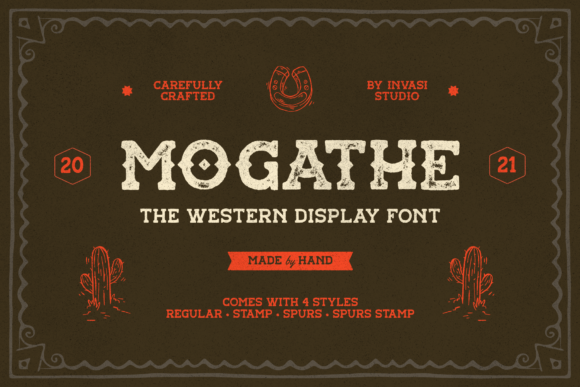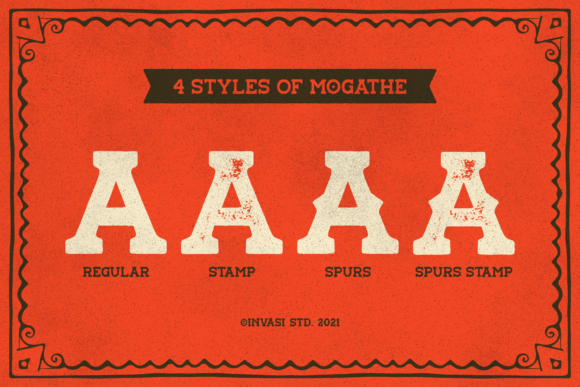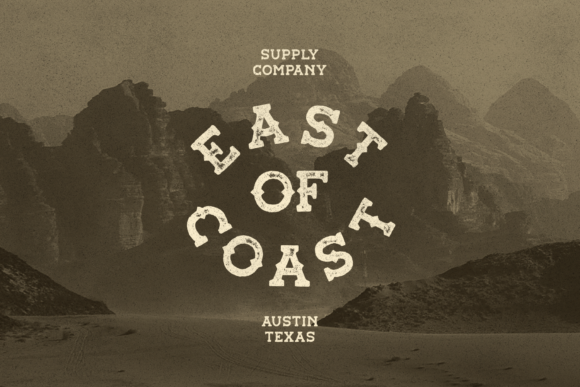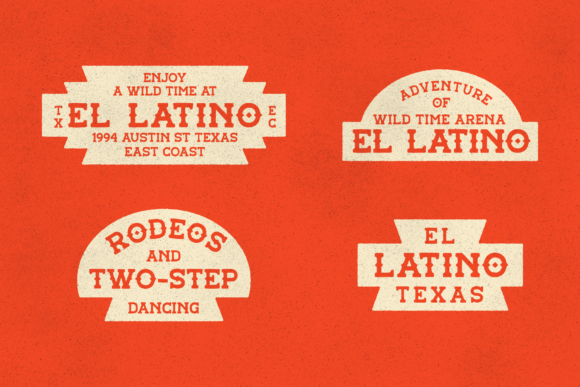
Mogathe Font: Vintage Western Slab Serif for Bold Logo Design
About the Mogathe Font
Welcome to the world of Mogathe Font, a typeface that will inspire your next great project. Mogathe was inspired by the West life Era. Mogathe is a western slab serif font with a vintage look and feel. Add it confidently to your projects, and you will love the results.
Mogathe’s bold, vintage aesthetic makes it ideal for headlines, posters, and branding projects requiring a strong, retro feel. It works exceptionally well for short impactful statements, logos, and packaging design where its slab serifs create a sense of classic authority. However, its strong character and relatively high x-height make it less suitable for body text or UI elements where readability over long stretches is paramount.
Pairing Mogathe effectively requires consideration of its strong personality. A clean sans-serif like Montserrat or a geometric sans-serif like Futura would provide a contemporary counterpoint, creating visual interest and hierarchy. For a more traditional feel, a refined serif such as Garamond or a slightly more playful script like Playfair Display could be considered, depending on the desired overall mood.
The font exudes a confident, slightly rebellious energy. Brands aiming for a vintage-inspired, yet modern feel, particularly within the Western or Americana aesthetics, would find Mogathe a strong and versatile choice.
Mogathe Font Usage Examples
Mogathe Font Example